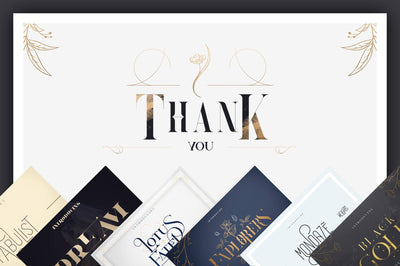
Fabulist - Display font
Fabulist is clean, modern font with tons of alternative glyphs, ligatures and multilingual support. It's a very versatile font that works great in large and small sizes.
Fabulist is perfect for branding projects, home-ware designs, product packaging, magazine headers - or simply as a stylish text overlay to any background image.
- Uppercase,lowercase, numeral,punctuation & Symbol
- Regular
- Tons of alternative glyphs
- Multilingual support
Explorers - Serif font + Extras
Explorers is sophisticated font with tons of alternative glyphs, ligatures, elements, photoshop styles and multilingual support. It's a very versatile font that works great in large and small sizes.
Explorers is perfect for branding projects, home-ware designs, product packaging, magazine headers - or simply as a stylish text overlay to any background image.
- Explorers serif font with tons of alternative glyphs, ligatures and multilingual support
Lotus Eater - Vintage font + extras
Lotus Eater is clean, vintage font with ligatures, tons of alternative glyphs, ornament and multilingual support. It's a very versatile font that works great in large and small sizes.
Lotus Eater is perfect for branding projects, home-ware designs, product packaging, magazine headers - or simply as a stylish text overlay to any background image.
- Uppercase,lowercase, numeral,punctuation & Symbol
- Tons of alternative glyphs
Mondaze Typeface - 4 weights
Mondaze is clean, rounded typeface with 4 weights, tons of alternative glyphs and multilingual support. It's a very versatile font that works great in large and small sizes.
Mondaze is perfect for branding projects, home-ware designs, product packaging, magazine headers - or simply as a stylish text overlay to any background image.
- Uppercase,lowercase, numeral,punctuation & Symbol
- Light
- Regular
- Bold
- Black
- Tons of alternative glyphs
- Clean
- Rounded
- Multilingual support
Black Gold serif font + Extras
Black Gold is sophisticated font with tons of alternative glyphs, ornaments, nature elements, photoshop styles, watercolours, ink marks and multilingual support. It's a very versatile font that works great in large and small sizes.
- Black Gold serif font with tons of alternative glyphs and multilingual support
Dream - magical serif font
Dream is elegant, clean font with 50 ligatures and multilingual support. It's a very versatile font that works great in large and small sizes.
Dream is perfect for branding projects, home-ware designs, product packaging, magazine headers - or simply as a stylish text overlay to any background image.
- Uppercase,lowercase, numeral,punctuation & Symbol
- Clean
- Multilingual support
- 50 Ligatures